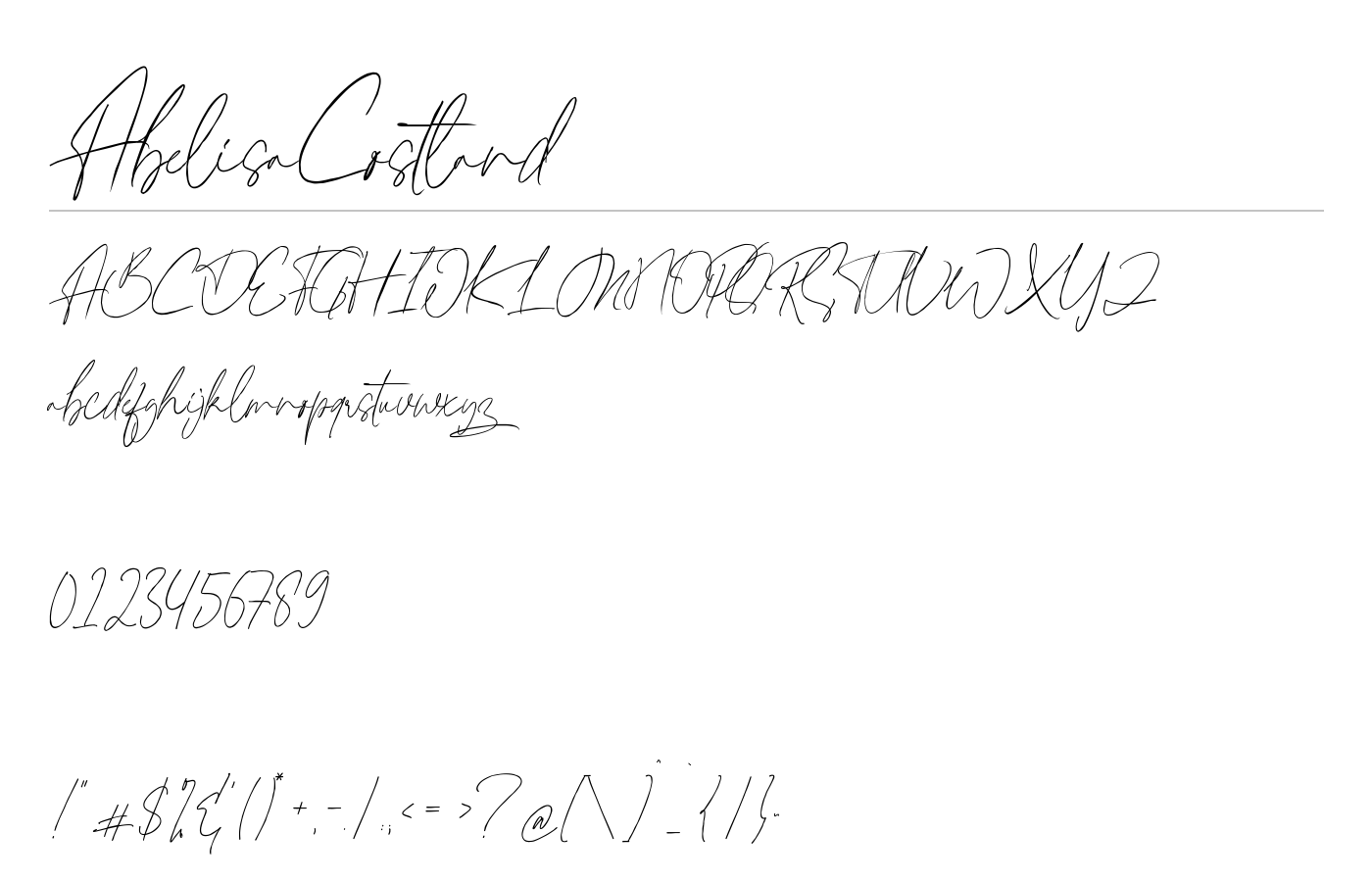
AbelisaCostland is a delicate, handwritten script font characterized by its thin strokes and elegant, flowing style. Its tall, narrow letterforms with a natural, casual touch make it perfect for projects seeking a personal, artistic feel, such as invitations, branding, and social media graphics. This font’s airy, refined appearance brings an intimate and sophisticated vibe, ideal for creative and fashion-focused designs.
AbelisaCostland Font